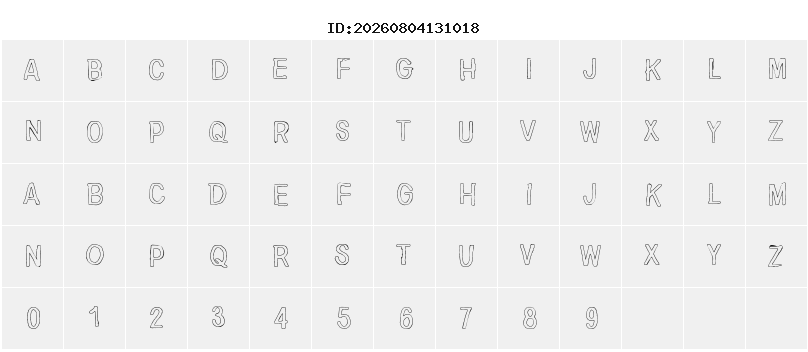
Nirepnirun oknalb Preview
• Font Name: Nirepnirun oknalb
• Full Font Name: Nirepnirun oknalb
• Version: Version 1.00 October 26, 2015, initial release
About Nirepnirun oknalb.ttf
Nirepnirun oknalb.ttf is a modern, elegant sans-serif font designed for ultimate readability and visual harmony. Perfect for branding, headlines, web design, and print materials.